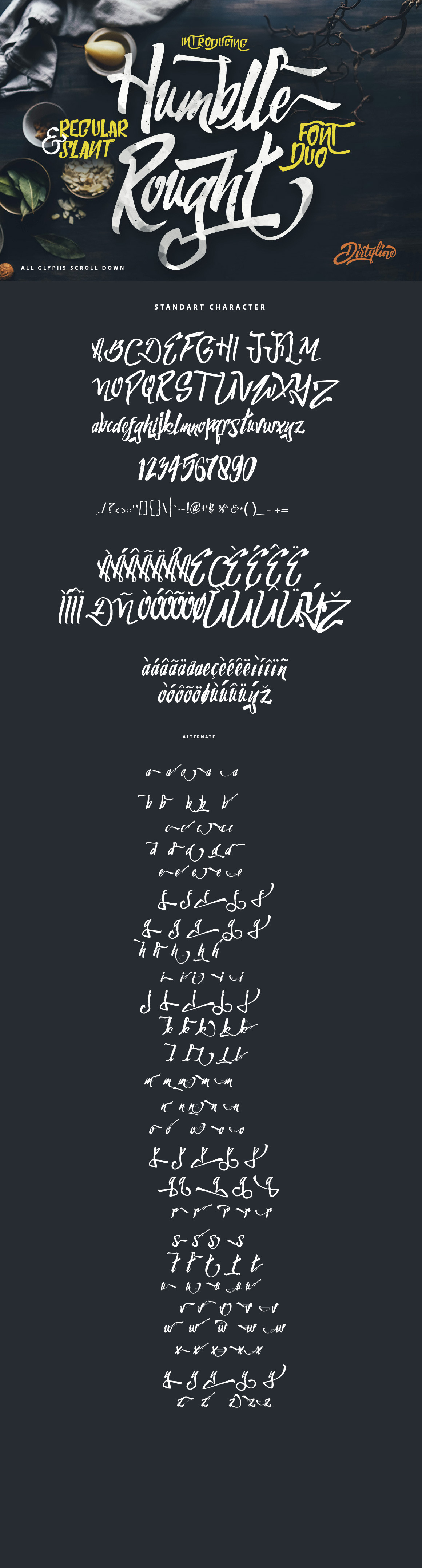
Humblle Rought - Font Duo + Extras
Humblle Rought - a modern vintage Brush typeface style with some combination of style Street And LifeStyle. wild hand and imperfect flow give the natural looks. So beautiful on invitation like greeting cards, branding materials, business cards, quotes, posters, and more!
Humblle Rought Include Duo Fonts: Humblle Rought Regular and All Capital with Slant. The alternative characters were divided into several Open Type features such as Swash, Stylistic Sets, Stylistic Alternates, and Swash. The Open Type features can be accessed by using Open Type savvy programs such as Adobe Illustrator, Adobe InDesign, Adobe Photoshop Corel Draw X version, And Microsoft Word. And this Font has given PUA unicode (specially coded fonts). so that all the alternate characters can easily be accessed in full by a craftsman or designer
- Initial Alternates
- Terminal Alternates
- Stylistic sets
- International Symbols Support